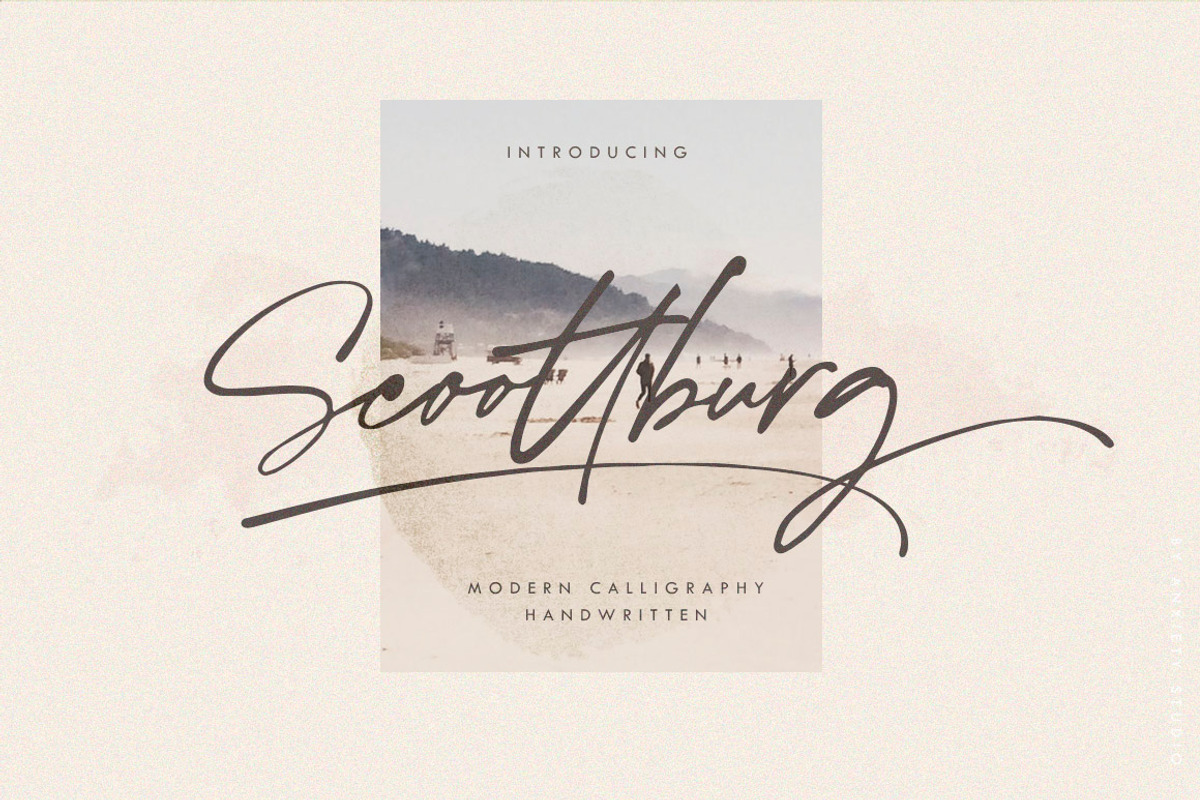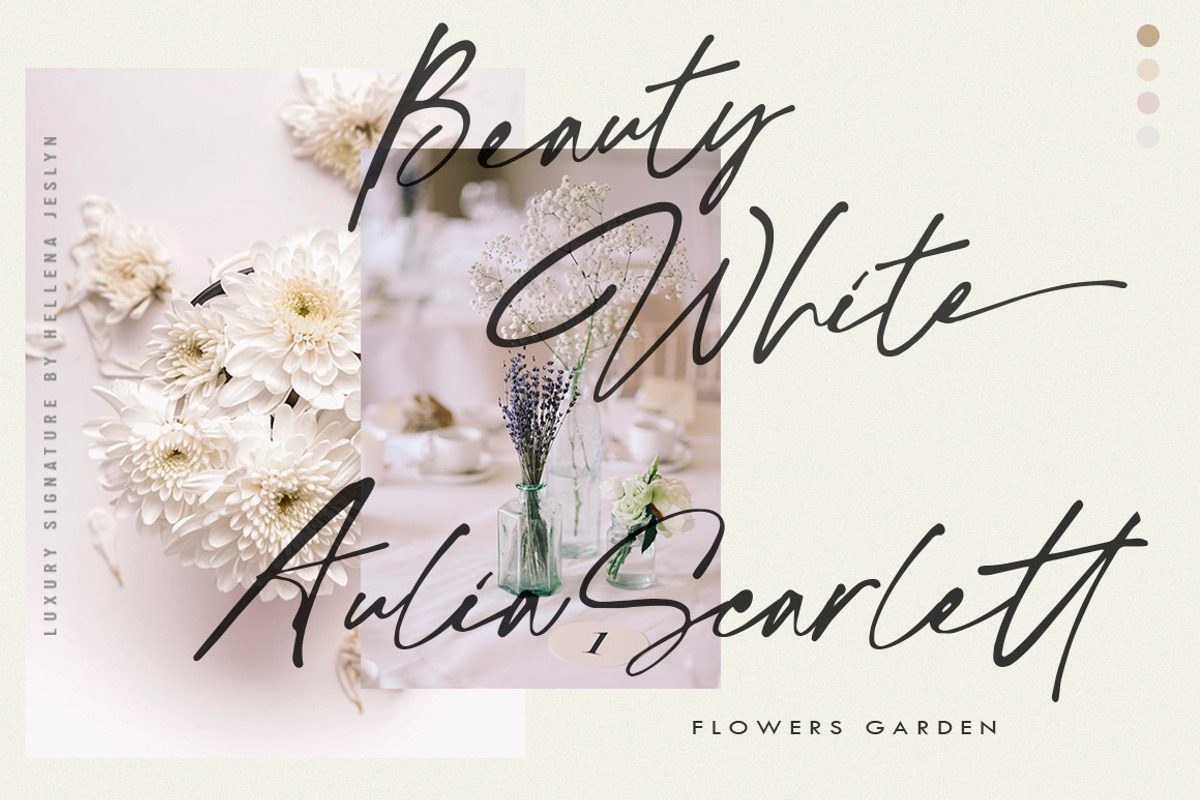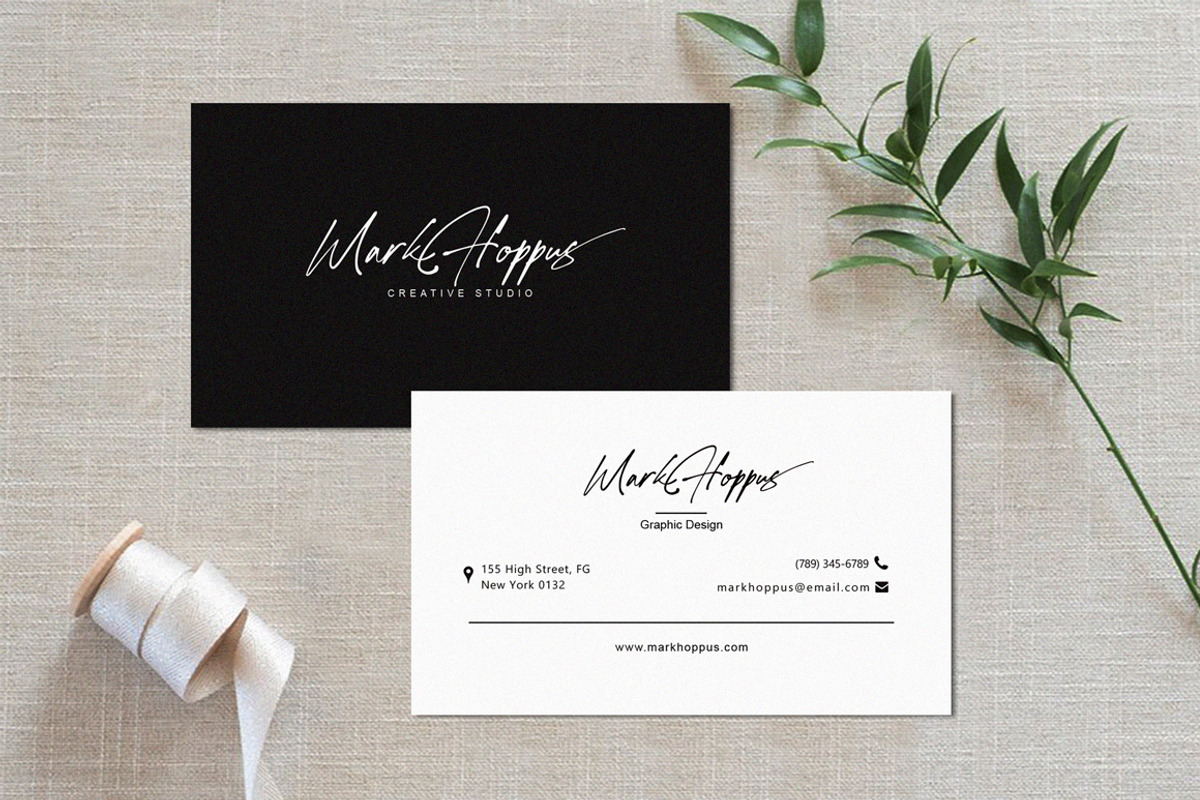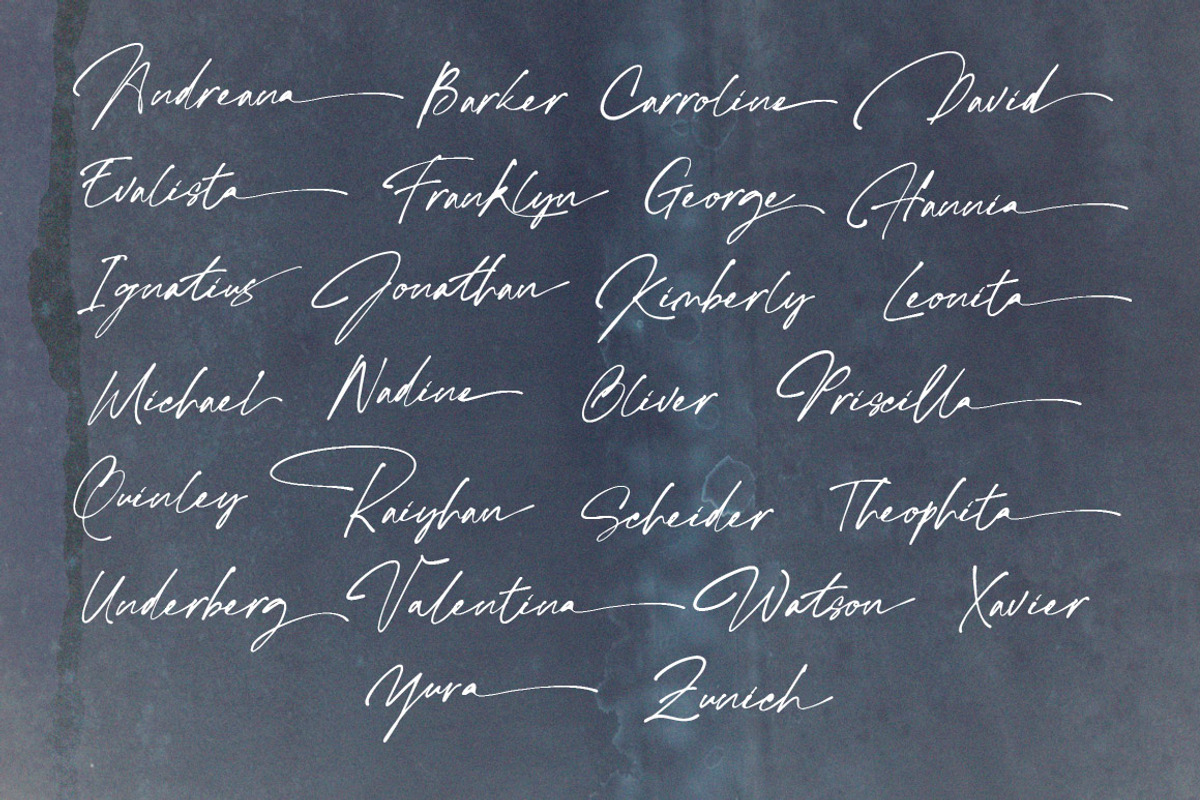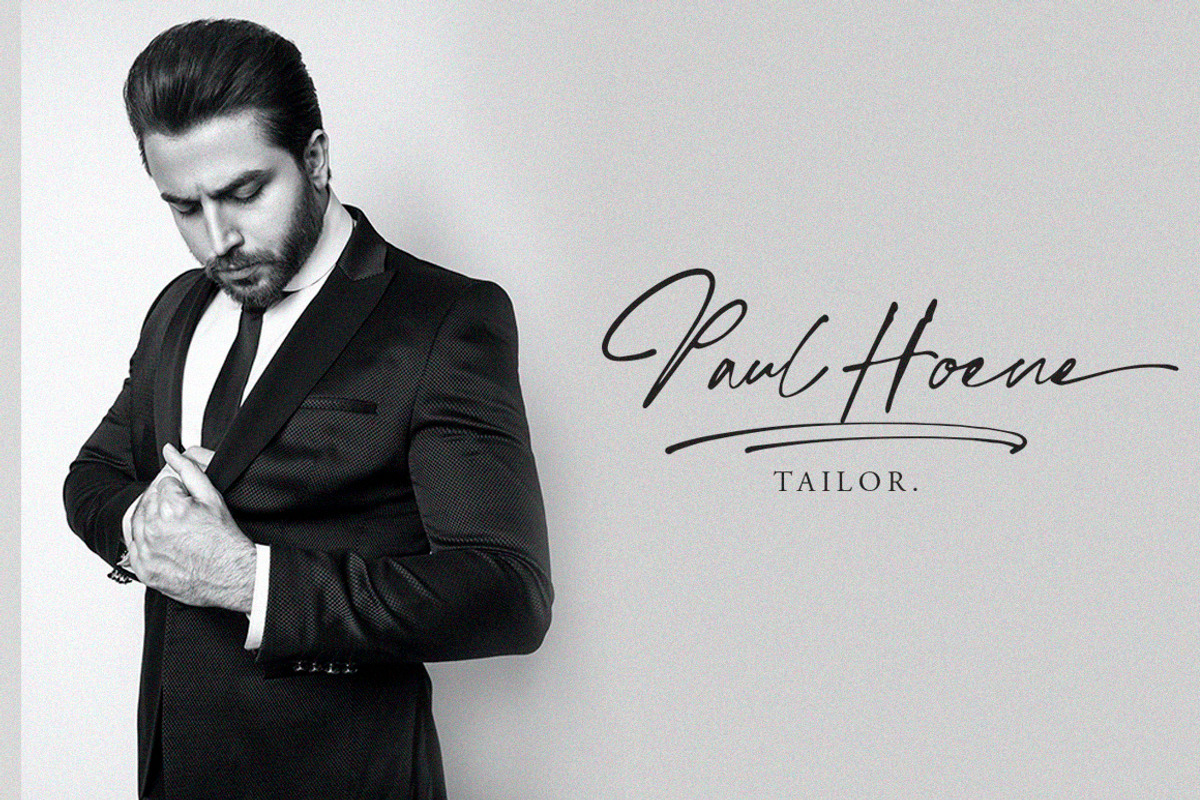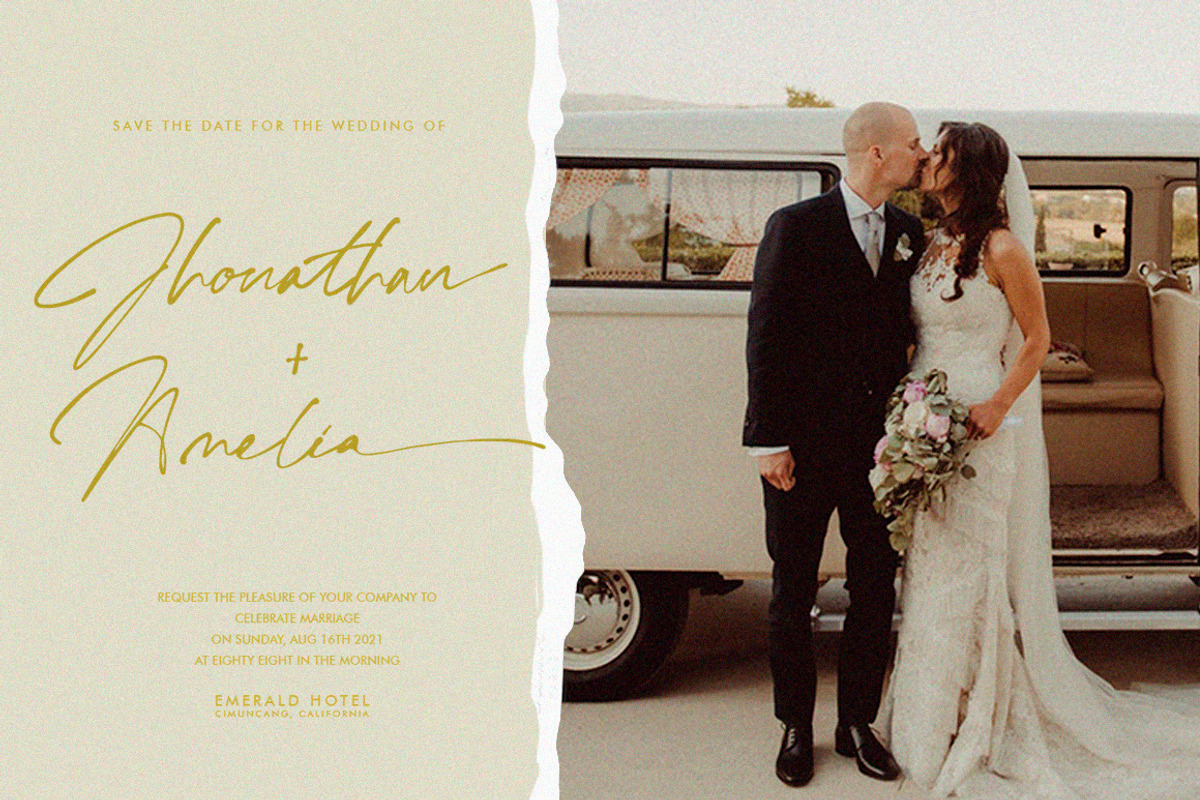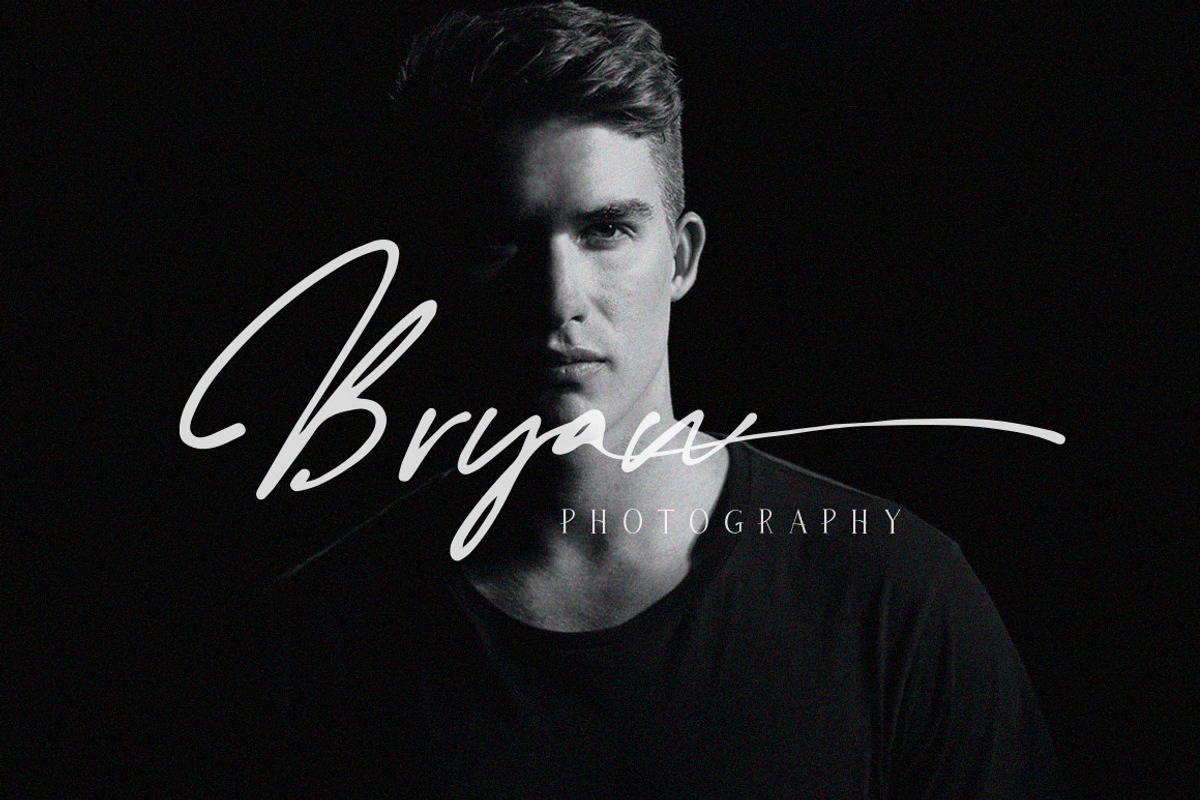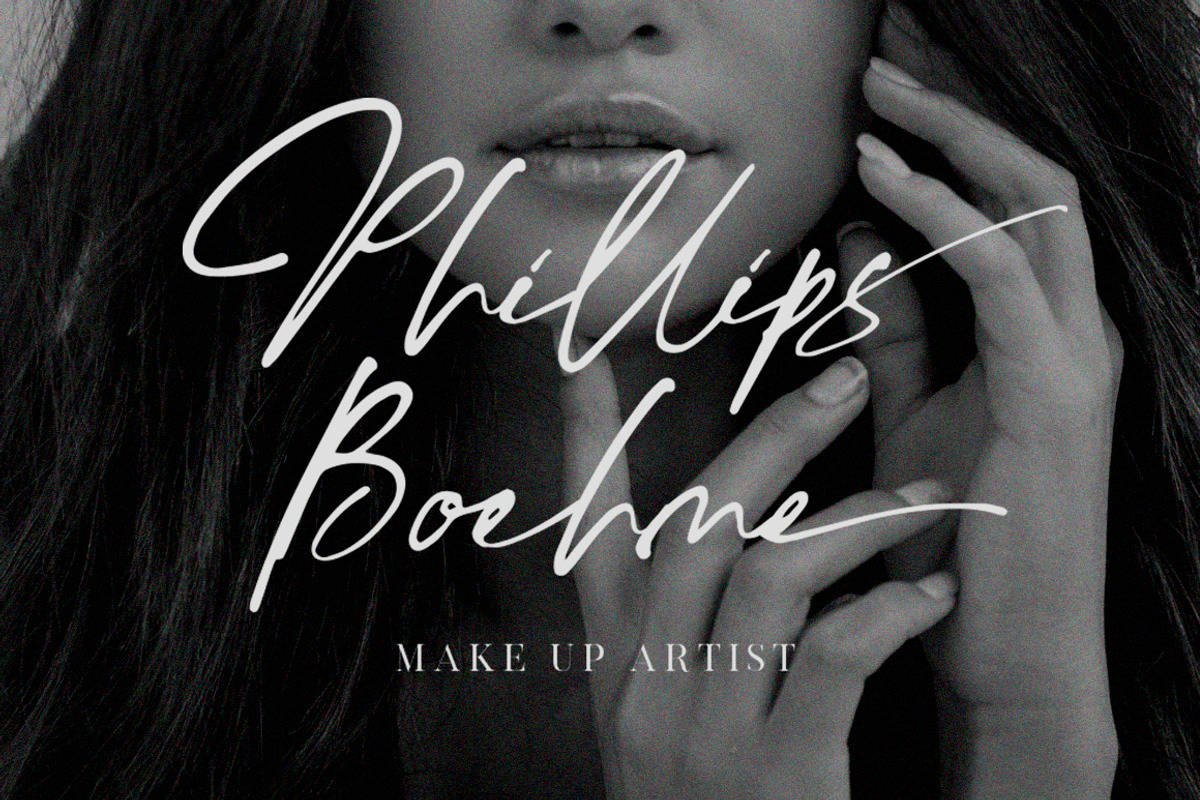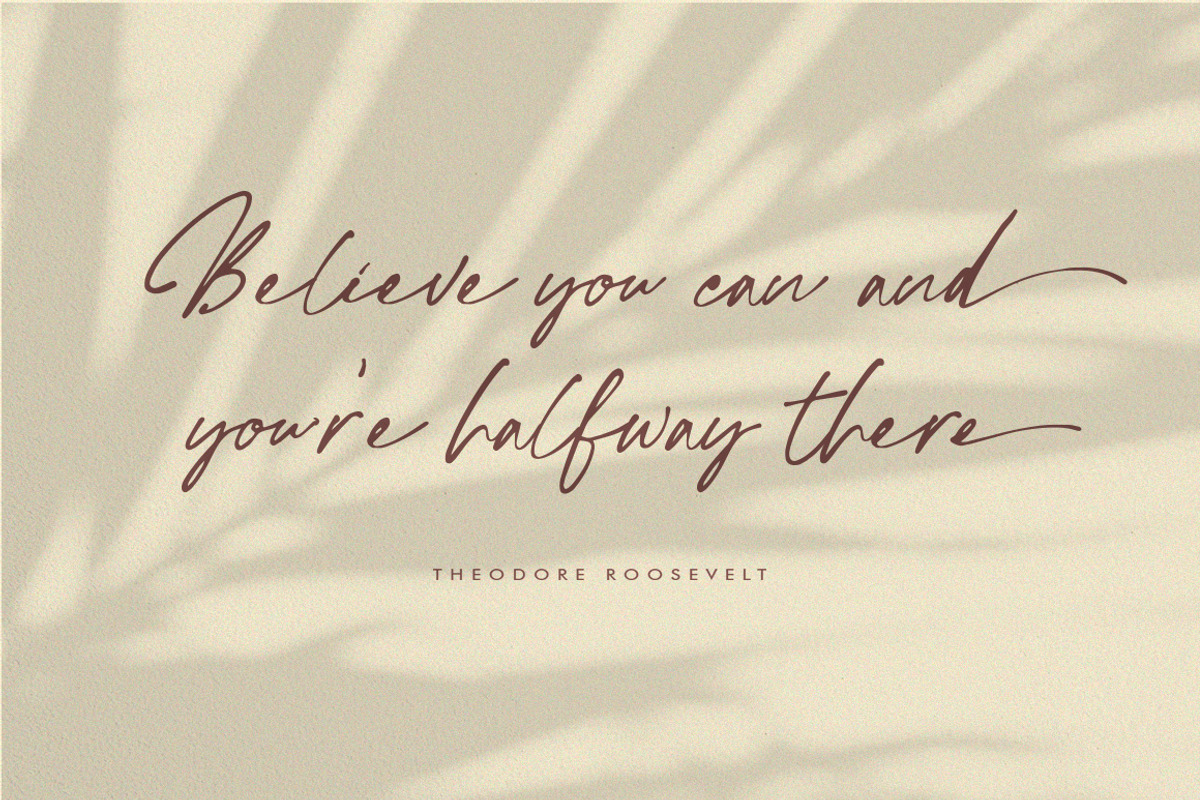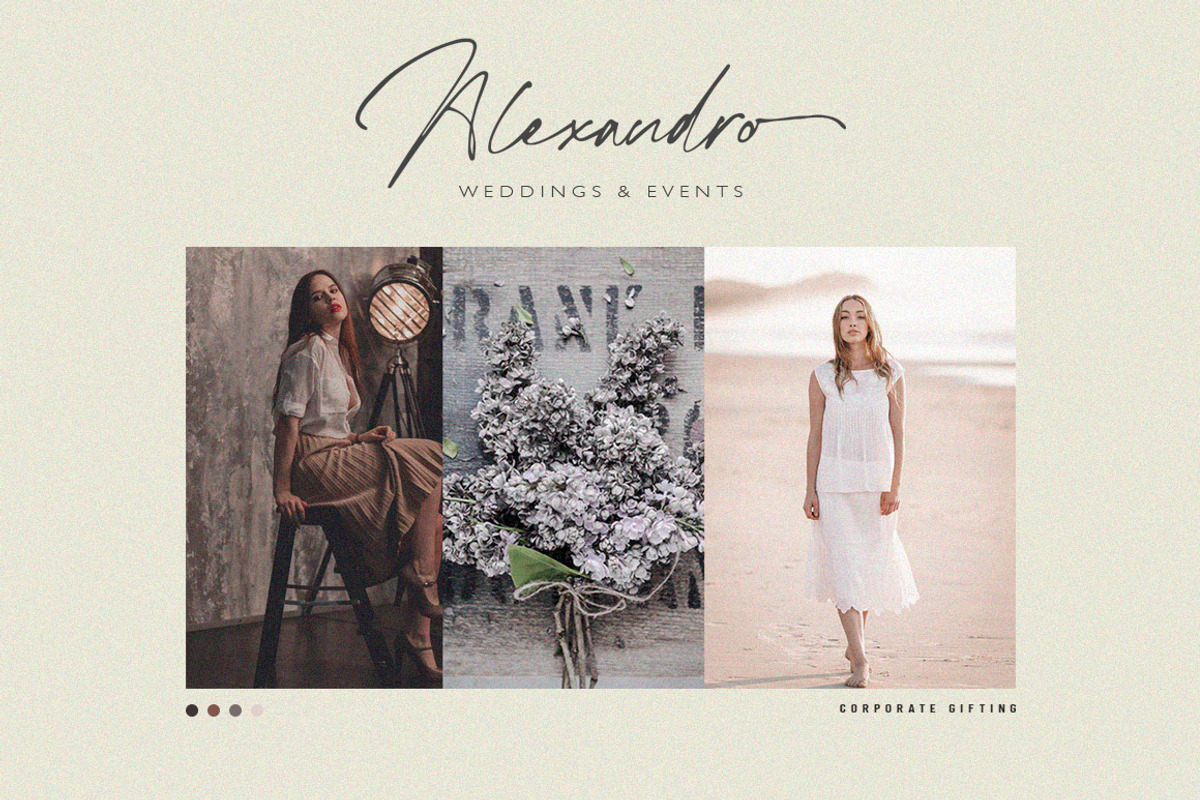
Scoottburg - Modern Calligraphy
Scoottburg is a signature style script writing with a natural and modern flow. This typeface was created and designed to look as close to natural writing as possible for a signature logo.
Scoottburg includes full set of upper and lower case letters, numbers, various punctuation marks, final swashes, extra swashes, ligatures and style alternatives. all the letters give a natural handwriting feel, this font is modern, simple, elegant but still original.
This font is perfect for branding, signatures, wedding invitations, logos, promotions, product packaging, social media design, advertising, photography, watermarks and other needs.
- Extra Swash
- Alternates Character